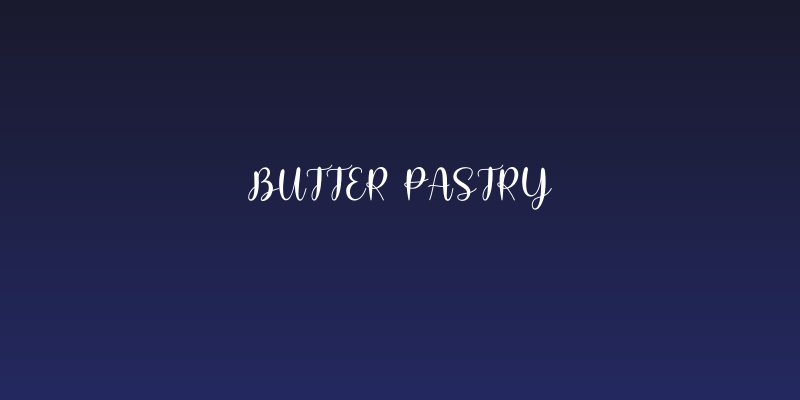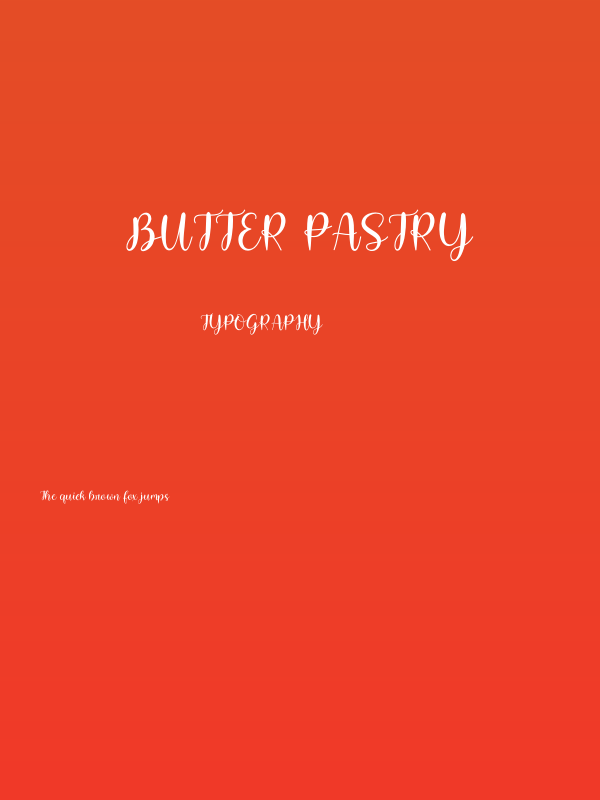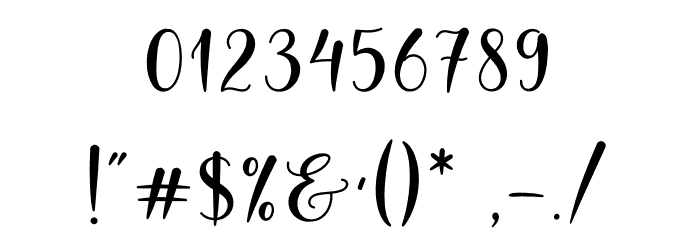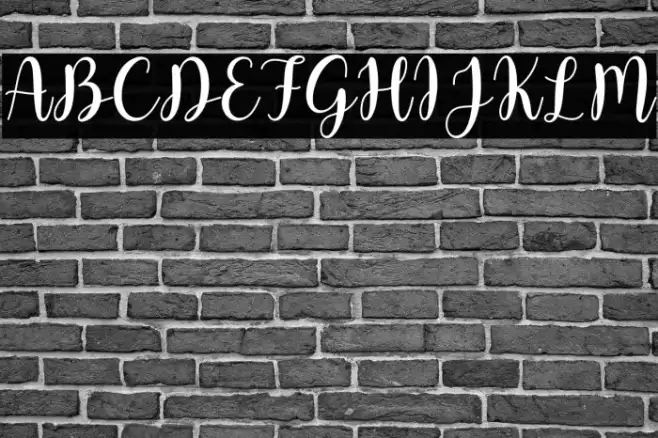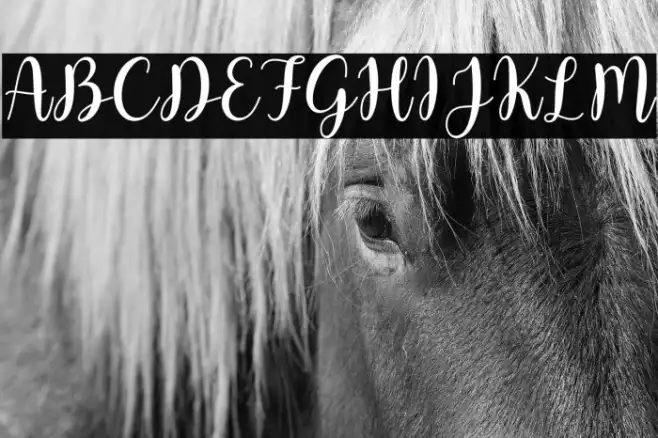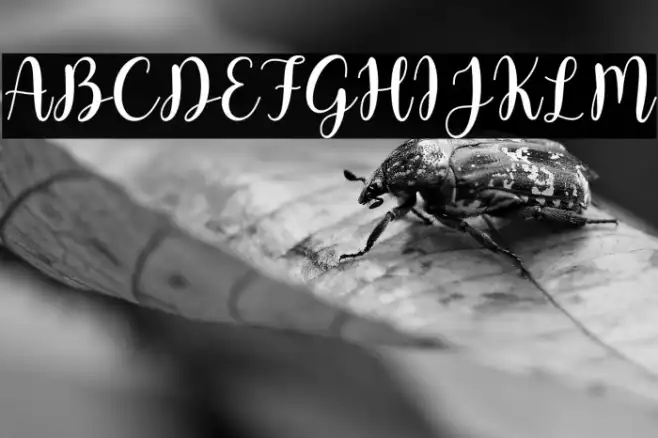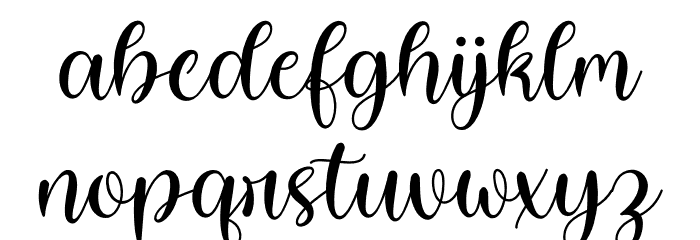
Butter Pastry Font
Butter Pastry Description
This font exudes a playful and elegant charm, characterized by its fluid, cursive style. The letters are connected with smooth, flowing lines, giving it a handwritten appearance. The uppercase letters are bold and expressive, while the lowercase letters maintain a consistent flow, enhancing readability. The numerals and special characters are crafted with the same attention to detail, ensuring a cohesive look across all elements. The font's overall design is both sophisticated and approachable, making it suitable for a variety of creative projects.